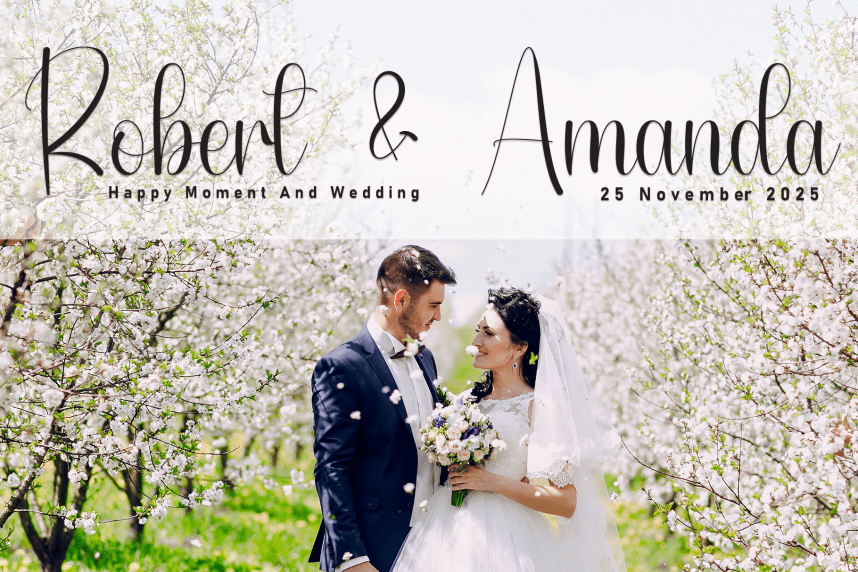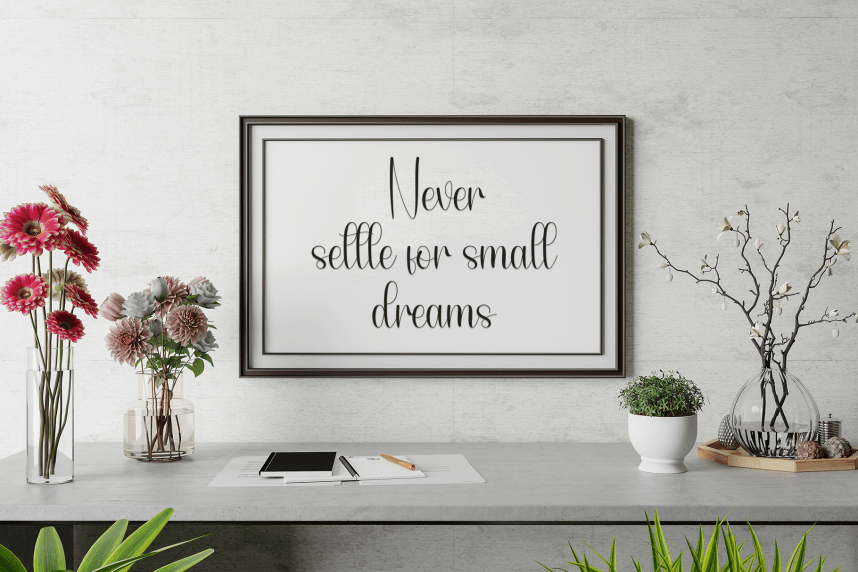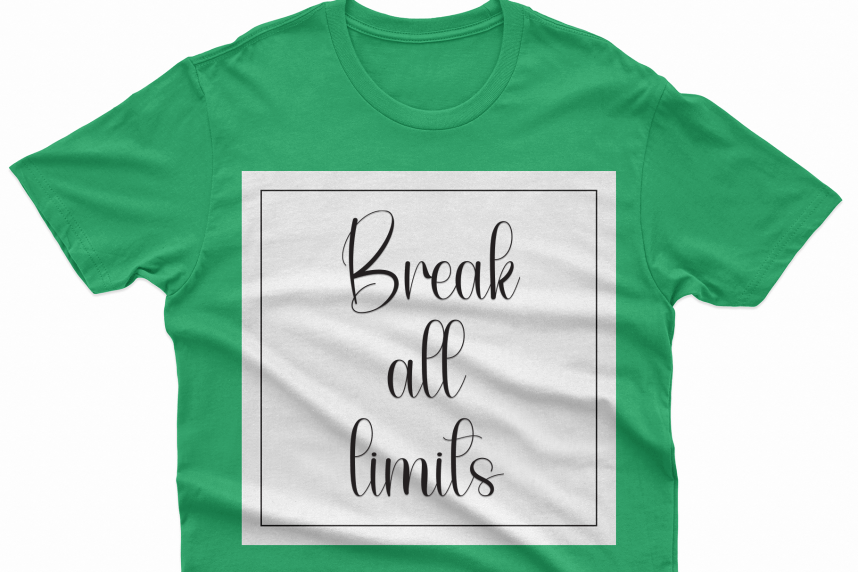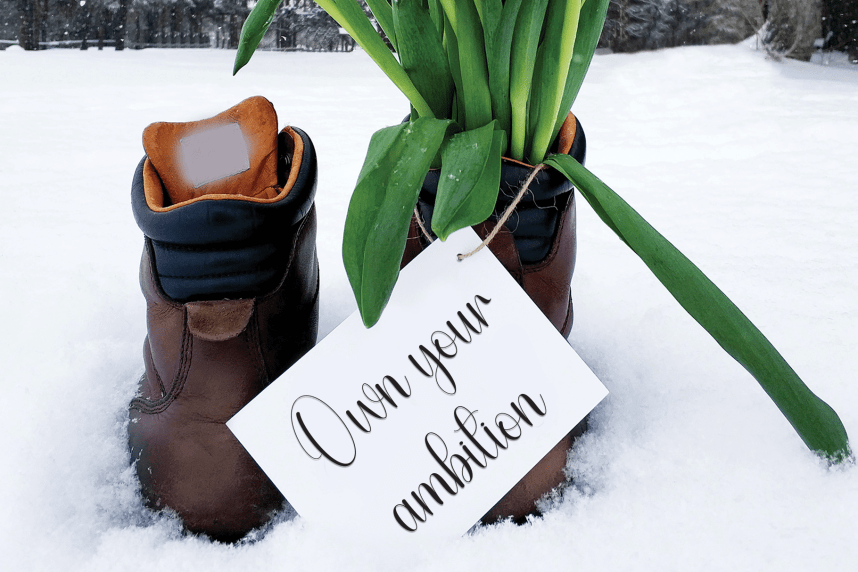
Dragonfly – Modern Script Handwritten Font
Dragonfly – Modern Script Handwritten Font is a sweet and friendly handwritten display font. Cute and fun, this font is ideal for writing wedding invitations, cards, or any other design that might need a playful touch!